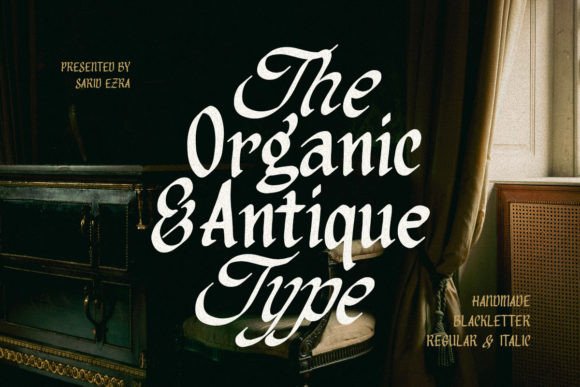
Prepare to be enthralled by the Organic Antique font, a typographic masterpiece that exudes elegance and sophistication. Crafted by the ingenious saridezra, this blackletter font is a captivating fusion of organic and handcrafted elements, evoking a sense of timeless beauty.
With its classic and vintage vibes, Organic Antique transports you to a bygone era, where intricate calligraphy and ornate lettering adorned manuscripts and royal decrees. Its hand-lettered charm adds a touch of authenticity and artistry to your designs, making them stand out from the ordinary.
Immerse yourself in the world of Organic Antique and discover the endless possibilities it holds. Create awe-inspiring logotypes that command attention, quotes that resonate deeply, branding that exudes individuality, and movie posters that transport audiences to fantastical realms.
Unleash your creativity and let Organic Antique be your muse. Its rough and rugged texture adds depth and character to your designs, capturing the essence of natural elements and evoking a sense of connection to the earth.
Experience the transformative power of Organic Antique and witness how it elevates your designs to new heights. Embrace the beauty of imperfection and embrace the organic flow of this remarkable font.